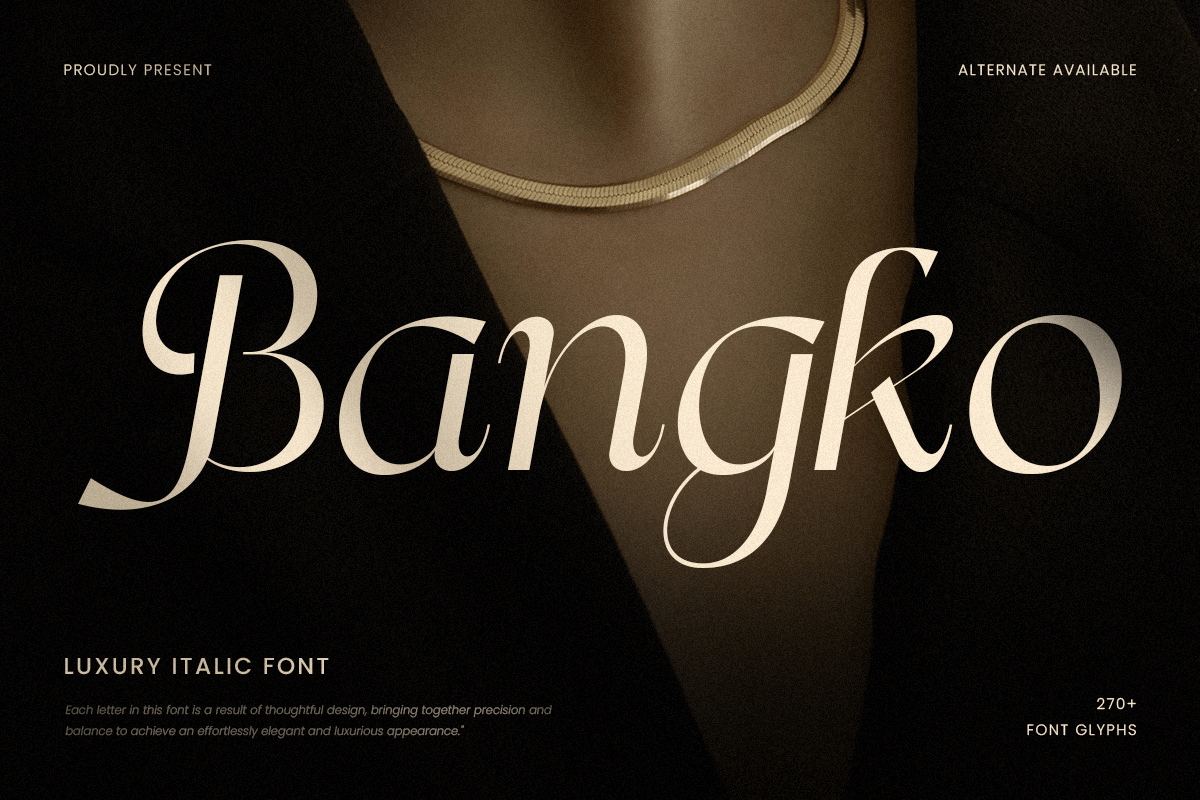
Bangko
-Luxury Italic FontBangko - Luxury Italic Font
Bangko is a luxury italic font designed to bring elegance and refinement to any project. Its fluid, graceful strokes and sophisticated curves make it a perfect choice for high-end branding, fashion magazines, luxury packaging, and editorial designs. With a delicate balance of classic and modern aesthetics, Bangko exudes charm and exclusivity.
Versatile for High-End Designs
This font is crafted for designers who seek a touch of sophistication in their work. Whether you're designing a stylish logo, an upscale invitation, or a premium product label, Bangko delivers a polished and luxurious feel. The italic style adds a dynamic movement to the text, making it ideal for impactful headlines, signature-style branding, and artistic typography compositions.
Refined, Stylish, and Timeless
Bangko is not just a font; it’s a statement of style. Its carefully designed letterforms provide an air of exclusivity, making it suitable for luxury branding, wedding invitations, boutique signage, and more. If you need a font that embodies elegance and premium quality, Bangko is the perfect choice.
Bangko - Luxury Italic Font Features: